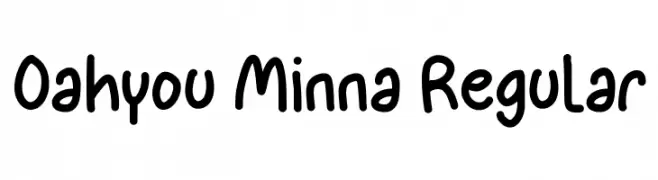
( Fonts by Jimtype Studio )
A bold, playful typeface with rounded, bubbly characters.
( Fonts by Gassstype )
A bold, graffiti-style font with sharp angles and dynamic strokes.
A playful, modern font with rounded and angular elements, offering a friendly appearance.
( Fonts by Mabhal Studio )
A lively handwritten font with fluid strokes and a dynamic appearance.
( Fonts by Dhabee Studio )
( Fonts by Alpaprana Studio )
A playful, bold handwritten font with smooth, rounded edges and a friendly vibe.
A graceful, handwritten script font with flowing, elegant strokes.
A modern font with a blend of geometric and organic elements, offering a dynamic and cohesive style.
( Fonts by Graphix Line Studio )
( Fonts by Gassstype )
A bold, geometric font with a modern, edgy style.
A lively, handwritten script font with fluid, connected letters.
( Fonts by Press Gang Studios - Andeh Pinkard - www.pressgang-studios.com )
A bold, hand-drawn font with an energetic and playful style.
A bold, playful font with geometric influences and rounded characters.
( Extram Studios - Lewis Bauer )
A modern, geometric font with clean lines and a slightly condensed style.
( Extram Studios )
A modern, geometric font with consistent line weight and balanced spacing.
A bold, playful script font with a handwritten style.
( Fonts by Staircase Studio )
A playful, handwritten font with a dynamic, wave-like flow.
( Fonts by Allouse Studio )
A playful, handwritten font with a casual and friendly style.
( Fonts by Booga Letter )
A playful, bold font with rounded, bubbly characters.
( Fonts by Staircase Studio )
A playful, flowing script font with a handwritten appearance.
( Fonts by Letterena Studios )
Casual, rounded handwritten font with playful character shapes.
( Fonts by Graphix Line Studio )
An elegant script font with intricate swirls and decorative flourishes.
( Fonts by Wahyu Studio )
A whimsical, handwritten script with tall, narrow characters and expressive lowercase forms.
( Fonts by AEN Creative Studio )
Bold, dripping decorative font with a spooky, playful vibe.
A bold, flowing script font with dynamic curves and thick strokes.
A playful and elegant script font with flowing, cursive design and decorative flair.
A bold, brush script font with dynamic and expressive strokes.
A bold, brush-style font with dynamic and expressive strokes.
A playful, handwritten font with bold, rounded strokes and a lively appearance.
A whimsical and elegant cursive script font with flowing, dynamic strokes.
An elegant script font with flowing, cursive letterforms and decorative swirls.
( Fonts by www.ohmaimaifont.com )
A playful, bubbly font with thick, rounded shapes and a whimsical style.